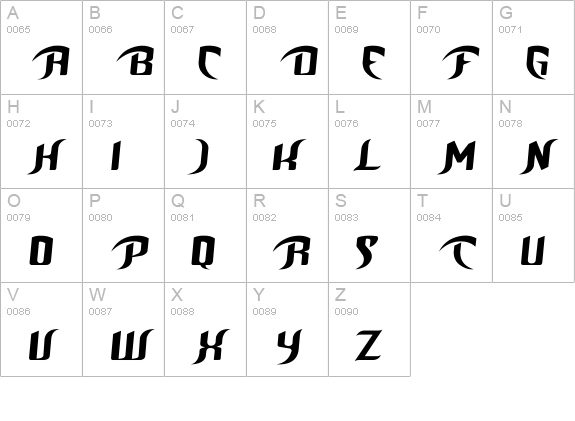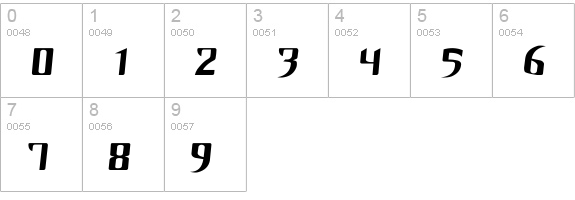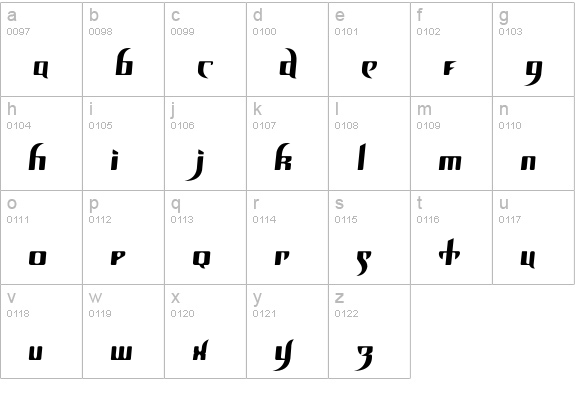
Unofficial BoP Font Font Details
Unofficial BoP Font is a stunningly unique typeface that embraces the essence of boldness and creativity. With its edgy and unconventional letterforms, this font is perfect for designers and artists looking to make a statement in their projects. What sets Unofficial BoP Font apart is not just its striking design, but also its availability as a free resource. That's right, you can download this remarkable font for free at FontsMarket.com. Whether you're working on a personal project, a professional design, or simply exploring your creativity, Unofficial BoP Font is here to add that extra touch of originality and flair to your work. This font exudes a sense of energy and dynamism that will instantly captivate your audience. Its strong and confident strokes command attention, making each letter stand out with its own unique personality. From headlines to logos, posters to social media graphics, Unofficial BoP Font will elevate your designs to new heights. Unleash your imagination and let Unofficial BoP Font be your trusted companion in creating visually stunning and impactful designs. Download it today for free at FontsMarket.com and let your creativity run wild.